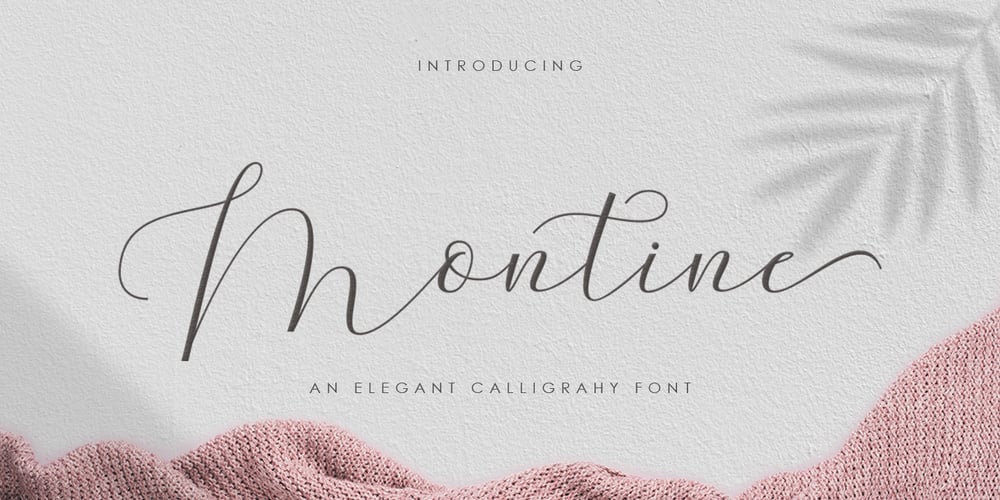
Montine Font Family was designed by khaidir and published by Gatype. Montine contains 1 styles and family package options. Montine Script is elegant calligraphy font. This font is casual and pretty with swashes. Can used for various purposes such as logos, product packaging, wedding invitations, branding, headlines, signage, labels, signatures, book covers, posters, quotes and more. Montine Script features OpenType stylistic alternates, ligatures and International support for most Western Languages is included. To enable the OpenType Stylistic alternates, you need a program that supports OpenType features such as Adobe Illustrator CS, Adobe Indesign & CorelDraw X6-X7, Microsoft Word 2010 or later versions.How to access all alternative characters using Adobe Illustrator: https://www.youtube.com/watch?v=XzwjMkbB-wQ Montine Script is coded with PUA Unicode, which allows full access to all the extra characters without having special designing software. Mac users can use Font Book , and Windows users can use Character Map to view and copy any of the extra characters to paste into your favourite text editor/app.How to access all alternative characters, using Windows Character Map with Photoshop: https://www.youtube.com/watch?v=Go9vacoYmBw If you have any question, don’t hesitate to contact me by email : chaidirgata@gmail.com Thanks so much for looking and Enjoy it!